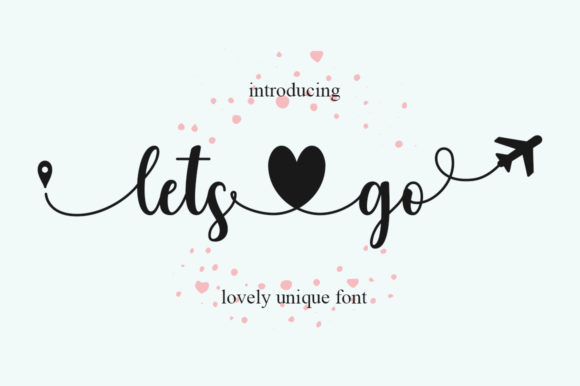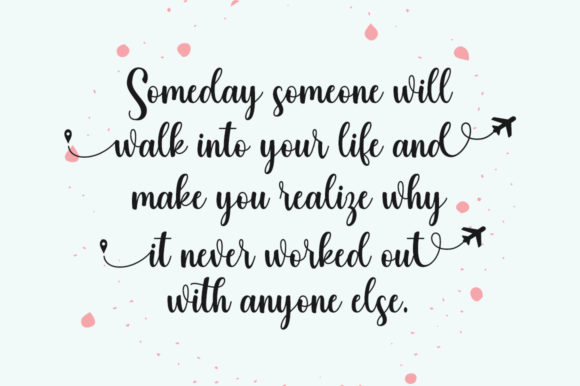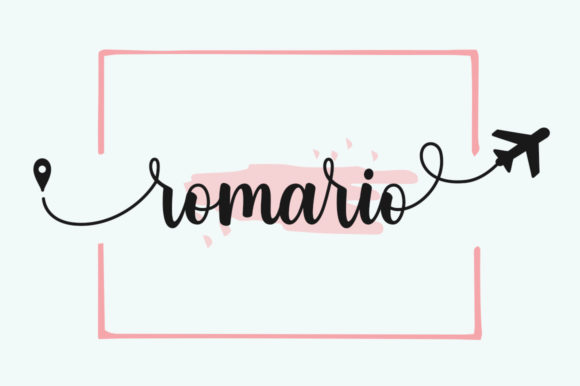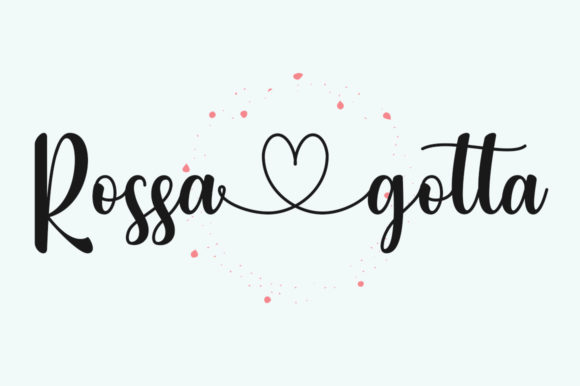
Let’s Go Font
About the Let’s Go Font
Get ready to be inspired by Let’s Go Font, a fresh and dynamic typeface for modern creators. Let’s Go is a sweet and friendly font. Its natural and unique style makes it incredibly fitting to a large pool of designs. You can successfully use it for style quotes, wedding cards, magazines, fashion, creative branding, album covers, book covers, movie titles, and so many more.
Let’s Go Font’s friendly, slightly quirky personality shines in headlines, short-form content, and branding applications where a touch of playful energy is desired. It works exceptionally well for logos, posters, and social media graphics. However, its less-than-optimal x-height makes it unsuitable for body text or extended reading.
Pairing Let’s Go with a clean sans-serif like Open Sans for body copy creates a balanced and readable combination. For a more sophisticated look, consider pairing it with a classic serif font such as Garamond or a geometric sans-serif like Futura. These pairings temper its informal charm, adding visual weight and sophistication as needed.
Ultimately, Let’s Go is best suited for brands and projects that project optimism and approachability—think children’s products, craft businesses, or lifestyle brands with a youthful spirit.
Let’s Go Font Usage Examples
Let's Go Font Example